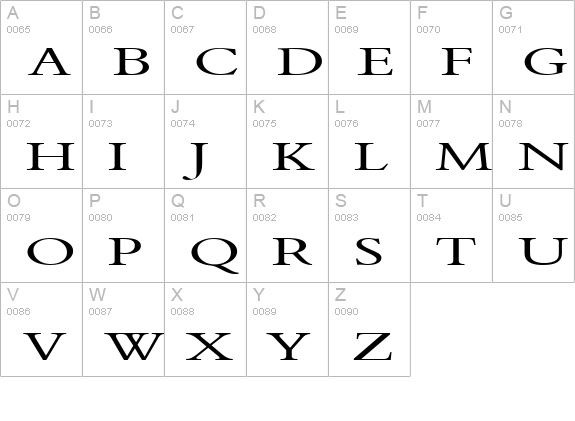
Nadine 2 Extended Normal Font Details
Nadine 2 Extended Normal is the standard, neutral, extended-width variant in the Nadine typeface family \xE2\x80\x94 well suited to general body text, paragraphs, and standard typographic work.